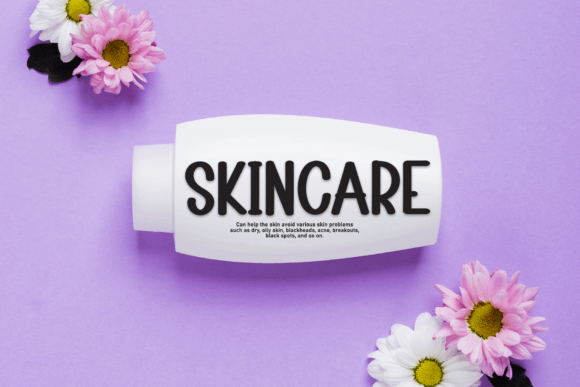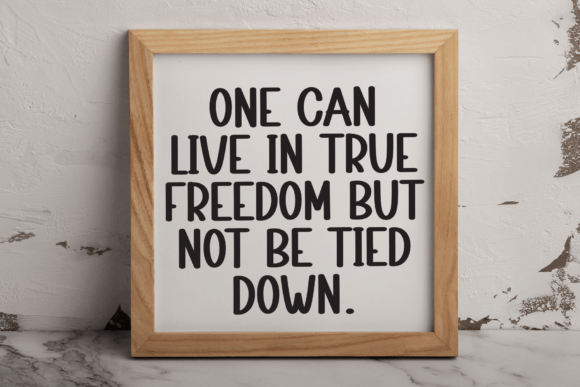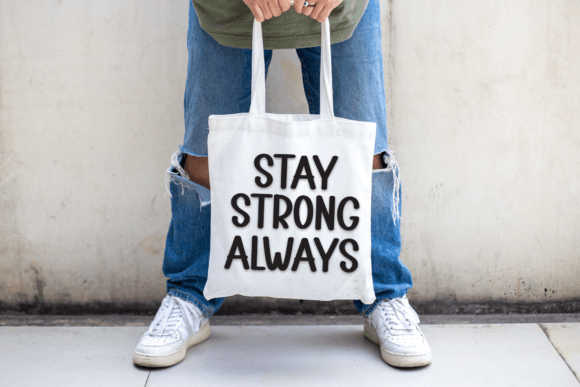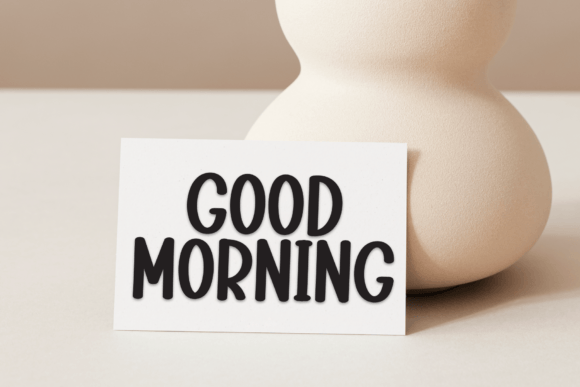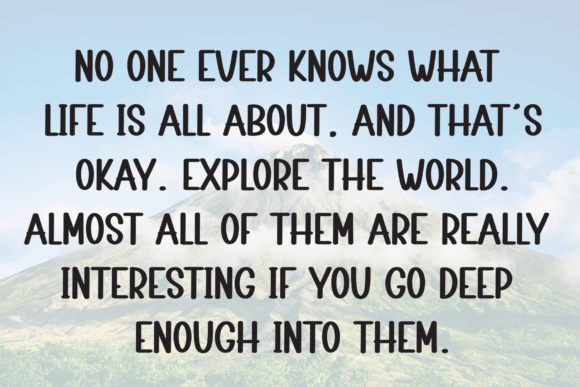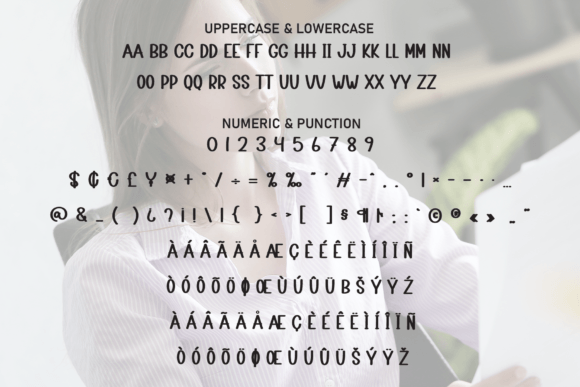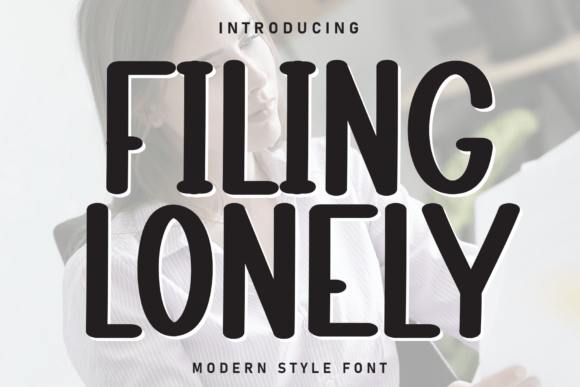
Filing Lonely Font: A Charming Handwritten Display Font
Are you tired of using the same old fonts for your designs? Look no further! Introducing Filing Lonely Font, a charming and amiable handwritten display font that is sure to add a touch of whimsy to your creations. With its irresistible charm, this delightful typeface is perfect for lending a joyful touch to your wedding invitations, cards, or any design endeavours that demand a sprinkle of charm and fun.
As a designer or crafter, you know how important it is to choose the right font for your project. A font can make or break the overall aesthetic of your design, and Filing Lonely Font is here to help you create something truly special. Its soft, lighthearted nature infuses every script with a playful charisma, ensuring your designs always remain aesthetically pleasing and captivating.
What Makes Filing Lonely Font So Special?
So, what sets Filing Lonely Font apart from other fonts out there? Here are just a few features that make it a standout:
- Whimsical Appeal: Filing Lonely Font has a unique, hand-crafted feel that gives it a whimsical appeal. It’s perfect for adding a touch of personality to your designs.
- Playful Charisma: The soft, lighthearted nature of this font infuses every script with a playful charisma that’s sure to capture the attention of your audience.
- Versatility: Filing Lonely Font is perfect for a wide range of design projects, from wedding invitations and cards to posters, flyers, and more.
- Ease of Use: This font is easy to read and works well in both digital and print formats, making it a great choice for designers and crafters who need to create a variety of materials.
How to Use Filing Lonely Font in Your Designs
Now that you know a little bit about Filing Lonely Font, let’s talk about how to use it in your designs. Here are a few ideas to get you started:
- Wedding Invitations: Add a touch of romance and whimsy to your wedding invitations with Filing Lonely Font. It’s the perfect choice for couples who want to make their big day truly unforgettable.
- Cards and Stationery: Use Filing Lonely Font to create one-of-a-kind cards and stationery that will make your friends and family feel special.
- Posters and Flyers: Add a playful touch to your posters and flyers with Filing Lonely Font. It’s a great way to grab the attention of your audience and make your message more memorable.
Tips for Getting the Most Out of Filing Lonely Font
Here are a few tips for getting the most out of Filing Lonely Font:
- Experiment with Different Sizes: Filing Lonely Font looks great in a variety of sizes, so don’t be afraid to experiment and find the perfect size for your design.
- Pair it with Other Fonts: Filing Lonely Font pairs well with a variety of other fonts, so try pairing it with some of your other favourites to create a unique look.
- Use it in Combination with Images: Filing Lonely Font looks great in combination with images, so try using it to add a touch of personality to your photos and illustrations.